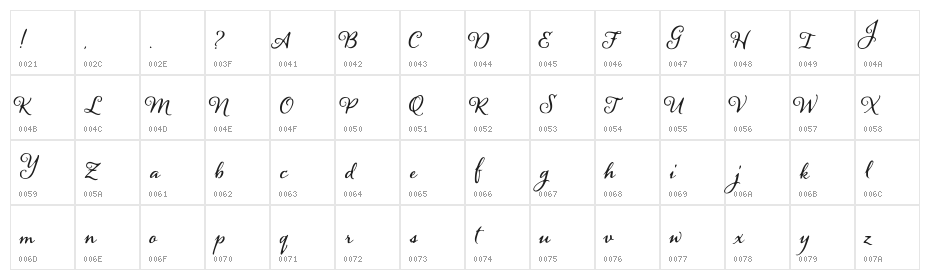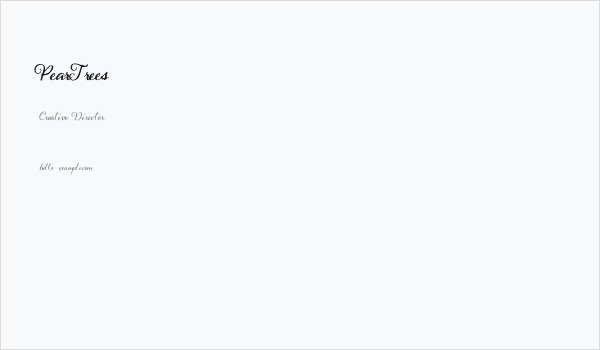
PearTrees Font
PearTrees Description
This elegant script font features flowing, interconnected letters that evoke a sense of sophistication and grace. The uppercase letters are ornate with intricate loops and swirls, while the lowercase letters maintain a more subdued yet still decorative style. The font's overall appearance is reminiscent of classic calligraphy, making it suitable for formal invitations and elegant branding. The characters are well-balanced, with a harmonious blend of thick and thin strokes, adding to its refined aesthetic. The special characters, although limited, maintain the same stylistic flair, ensuring consistency across all text elements.
| Proposed Projects | Ideal for wedding invitations, luxury branding, elegant logos, and formal event materials. |